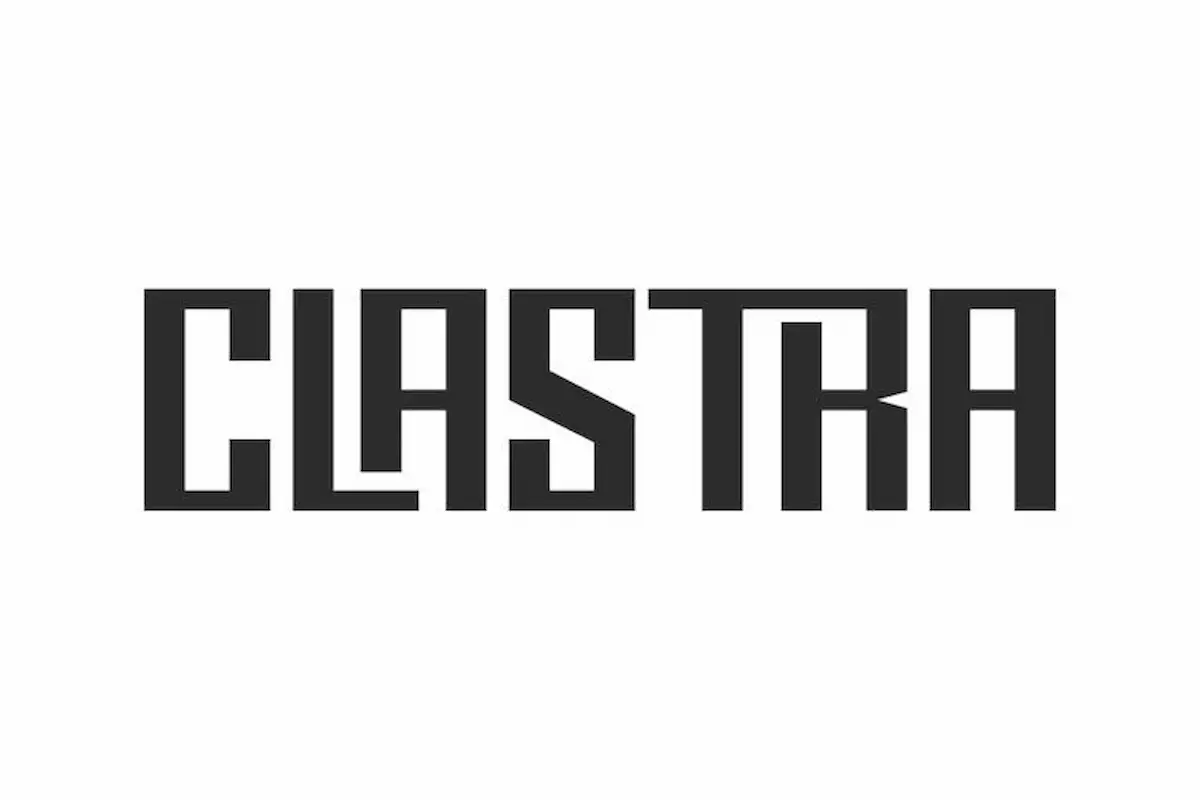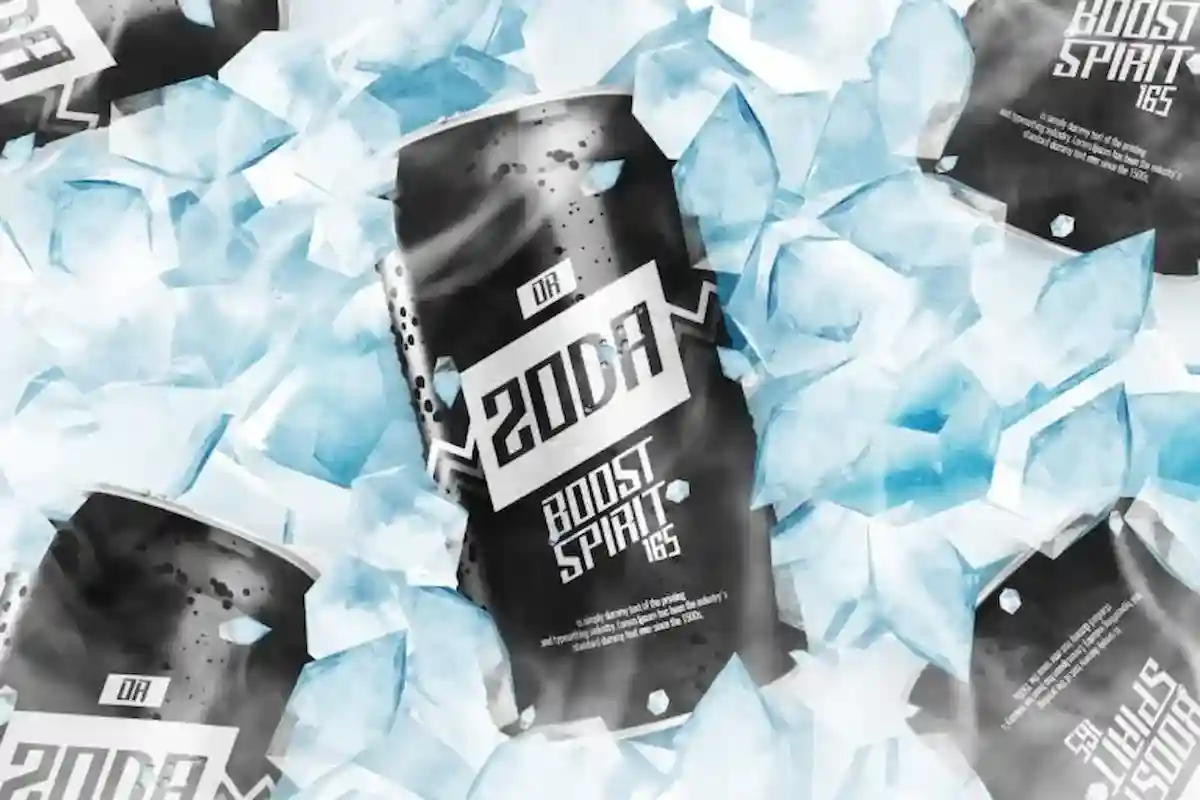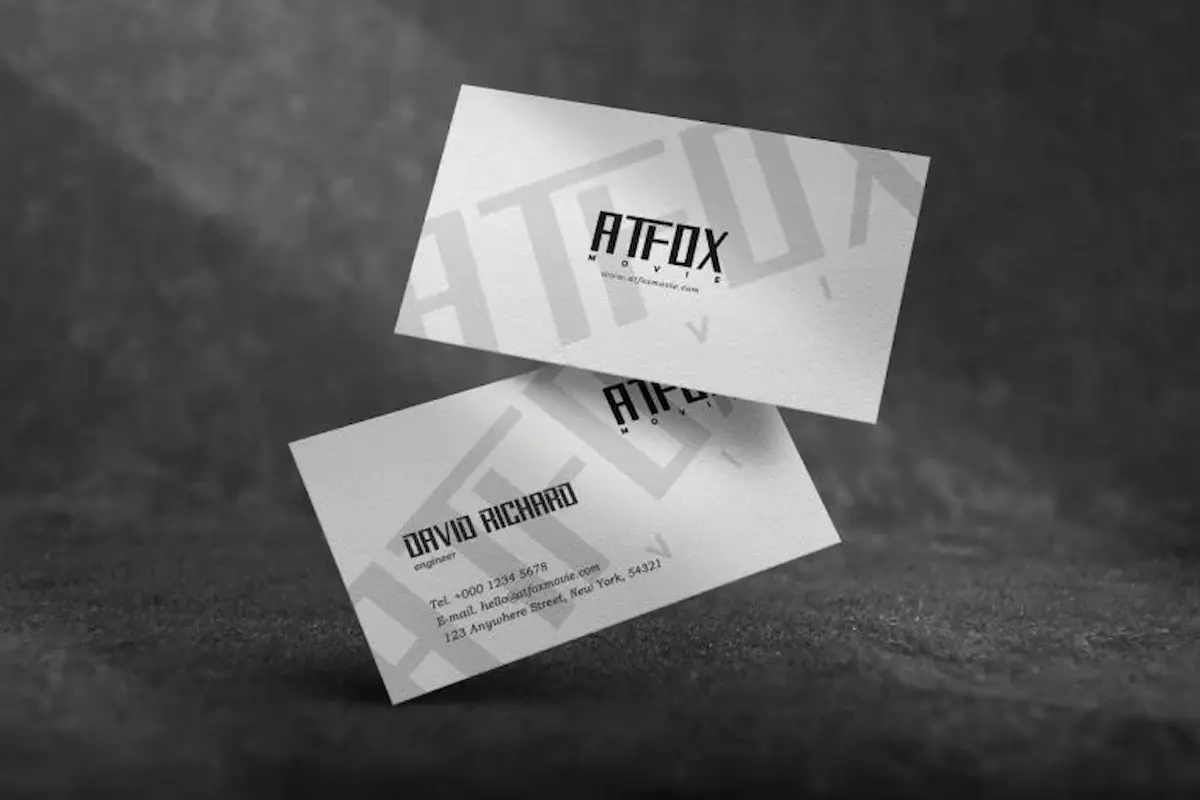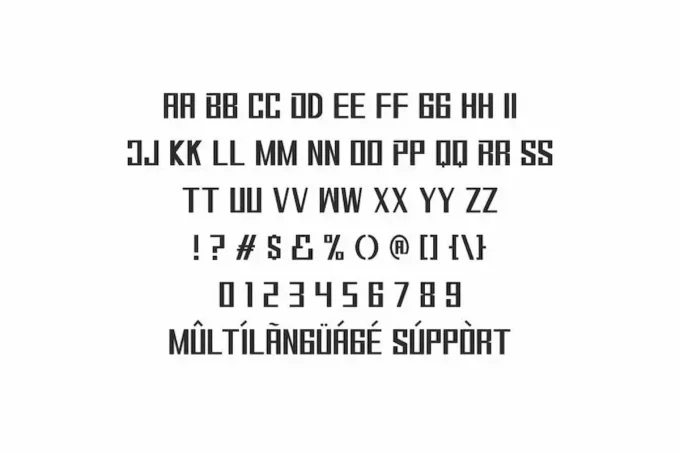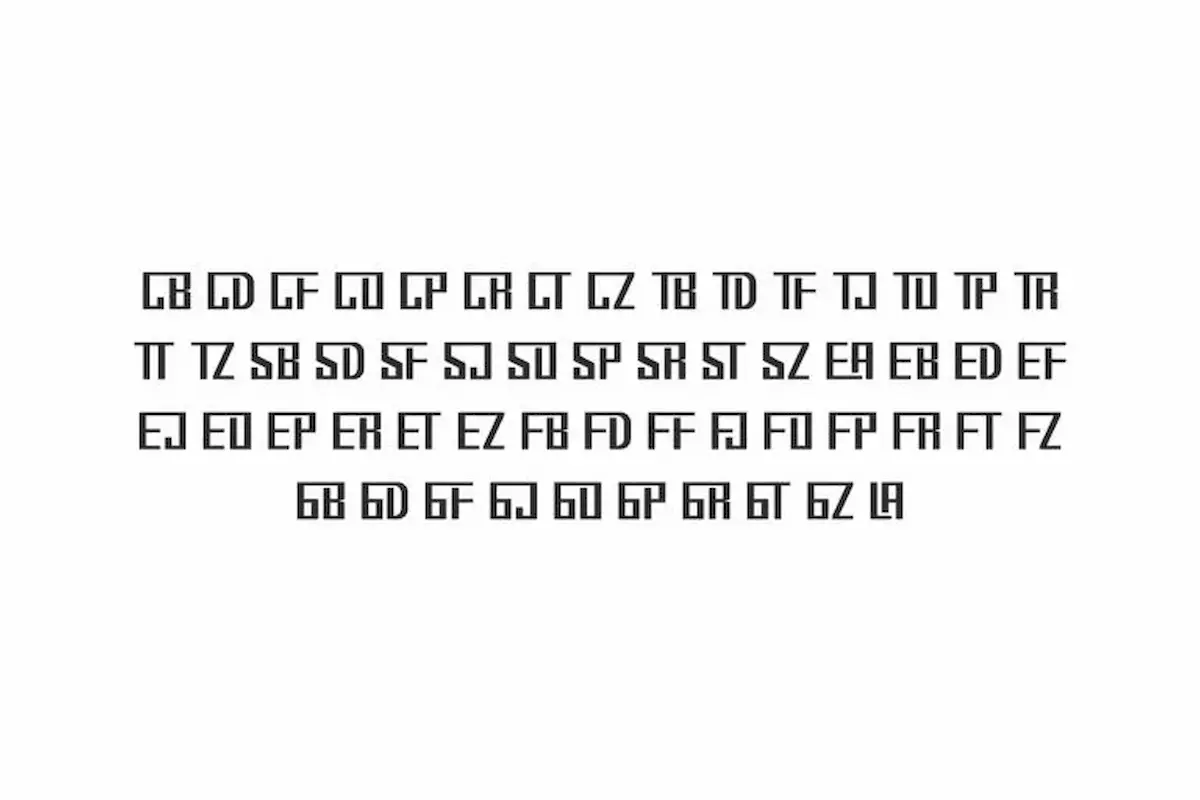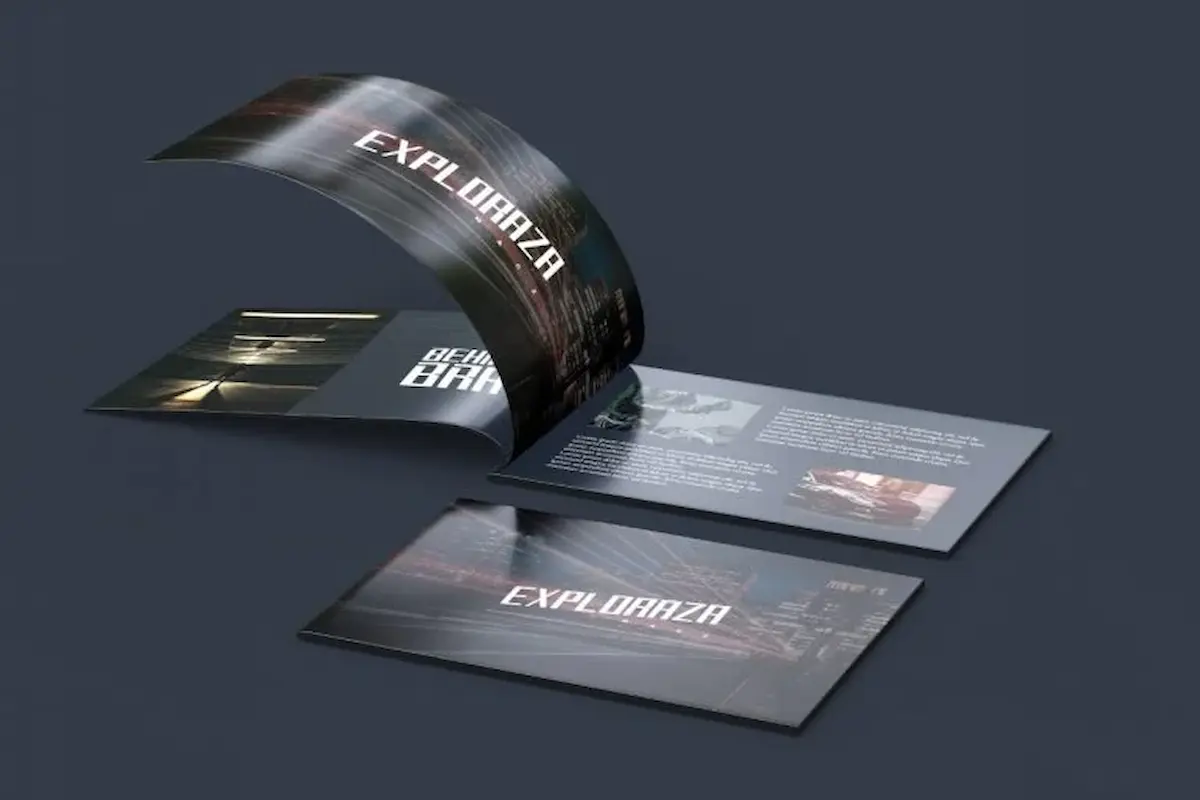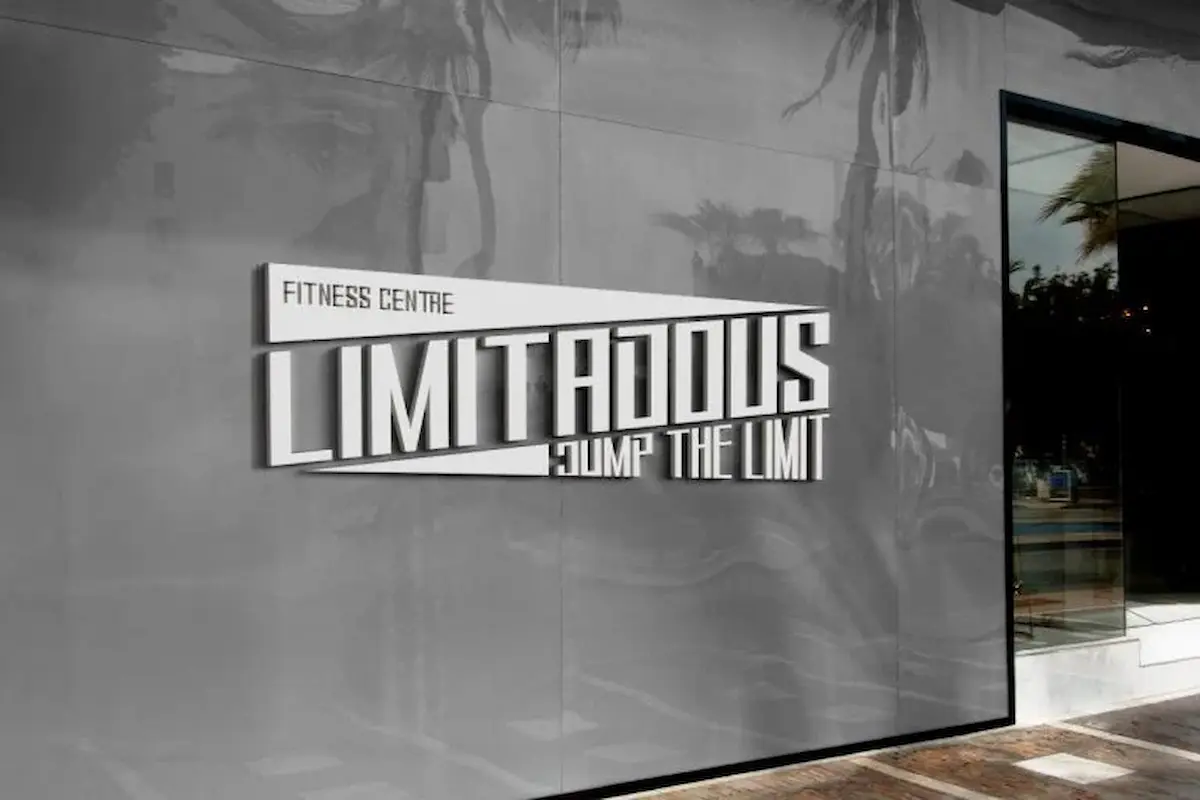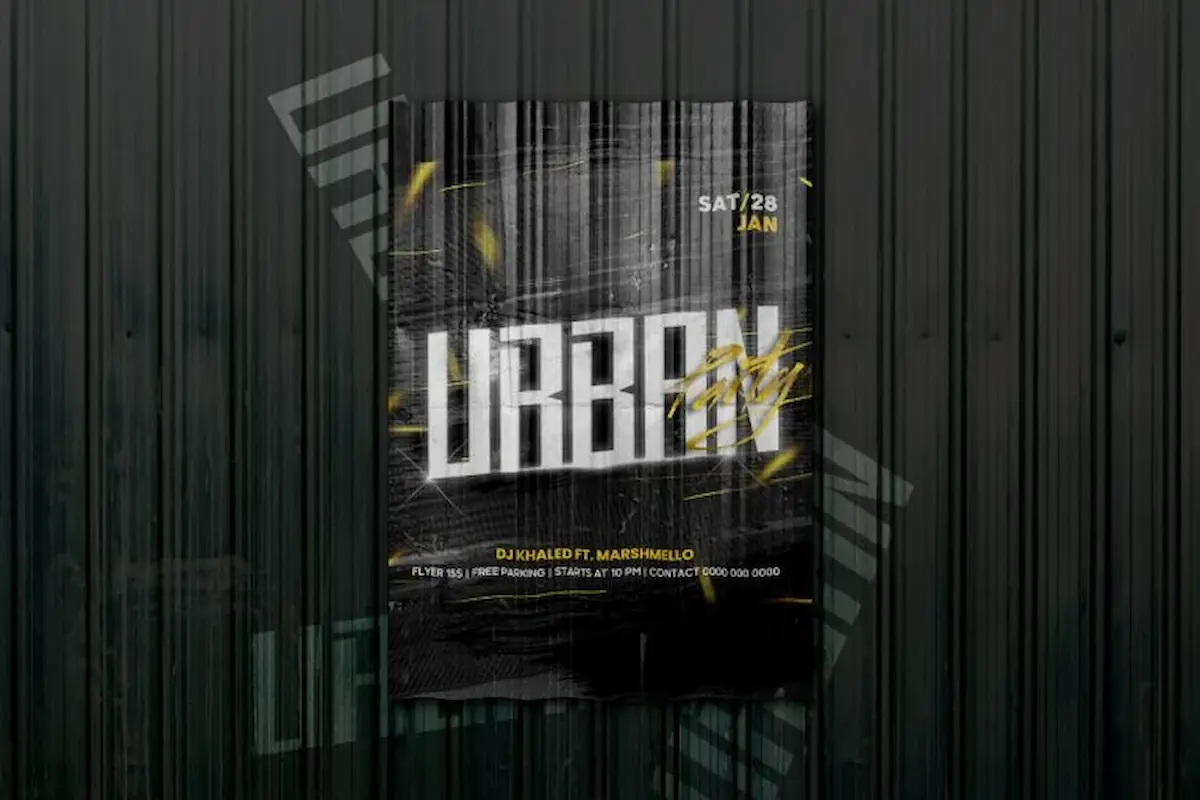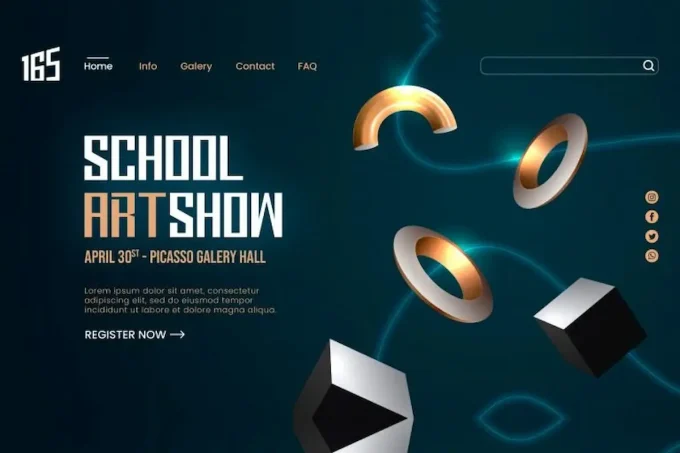
Clastra Font is a futuristic modern display font by NihStudio, made in 2021. Clastra will great for many industries : sports, events, magazine, games, website, movies etc
Clastra Font is a display font that has modern, bold and strong style. Try the font by typing your own text below. Please note that the test font below is a demo file, so some specimens/characters will not show up.
Clastra Font is a futuristic powerful display font family originally designed by NihStudio. It will be suitable for many business and industries including sports, technology, startup, gadget, games, movies etc On the package you will get :
Clastra was handcrafted here in our Studio , Indonesia. The font will be great for any projects (require extended license) including : branding, logo, stationery, business card, signage, flyer, brochure etc. It comes with awesome characters and ligatures to make it flowless, stunning and unique.